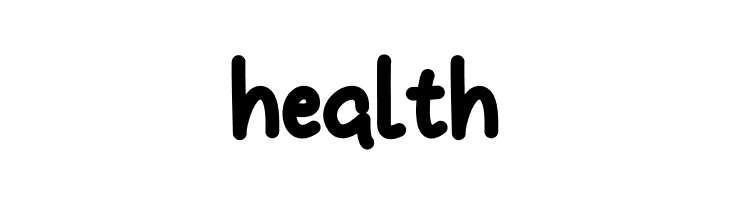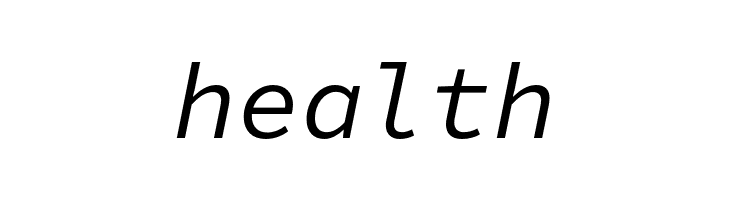
A bold, industrial font with a distressed, textured style.
A modern, rounded sans-serif font with a clean and minimalist style.
A bold, italic, and modern font with rounded characters and a dynamic style.
A playful, bold font with thick, rounded letters and a cartoonish style.
A bold, cartoonish italic font with outlined characters and a playful style.
A bold, playful font with medium contrast and a slightly condensed style.
A playful and dynamic font with bold strokes and whimsical character designs.
A bold, playful font with dynamic, hand-drawn style letterforms.
A bold, retro font with playful curves and a 1960s vibe.
A bold, vintage serif font with high contrast and dramatic serifs.
A bold, organic font with a fluid, hand-drawn appearance.
A bold, textured font with an organic, abstract design.
A playful, rounded font with smooth curves and a friendly appearance.
A playful, bold font with a 3D effect and rounded characters.
A vintage, bold serif font with a distressed, newspaper-like appearance.
A bold, dynamic font with a mix of sharp edges and smooth curves, ideal for modern designs.
A bold, high-contrast font with dynamic curves and elegant style.
A bold, modern sans-serif font with a strong, uniform appearance.
A modern, italic monospaced font with medium contrast and normal spacing.
A bold, monospaced font with a modern and technical style.
A modern, monospaced typeface with geometric structure and uniform spacing.
A bold, geometric font with a modern, outlined style.
A bold, geometric font with a shadow effect for a modern, three-dimensional look.
A clean, minimalist font with a condensed and light structure.
A modern, geometric font with clean lines and rounded edges.
A fluid and elegant script font with a dynamic, handwritten style.